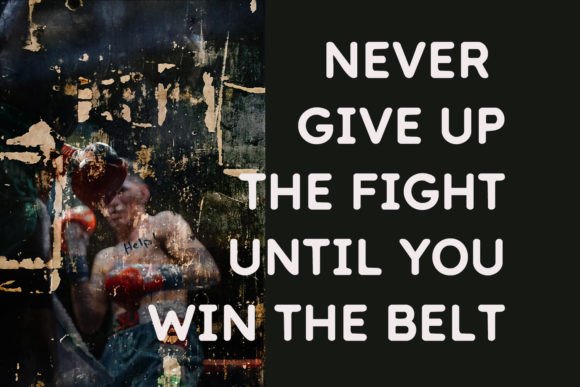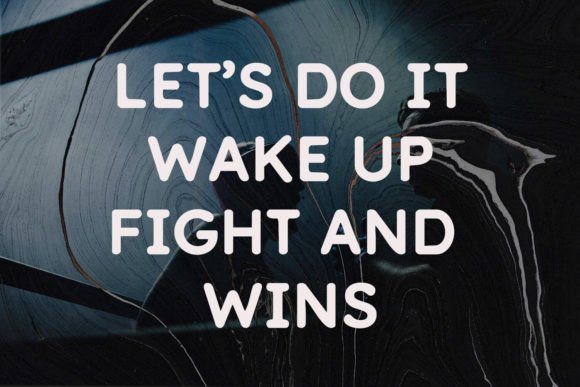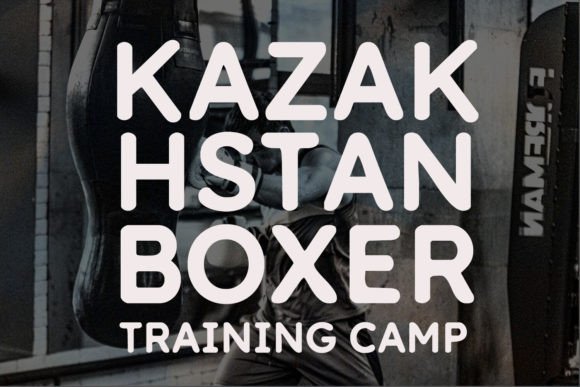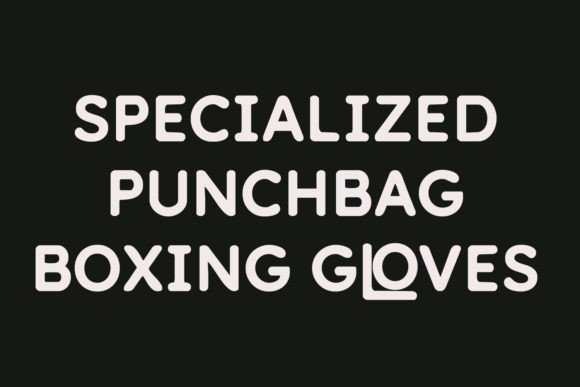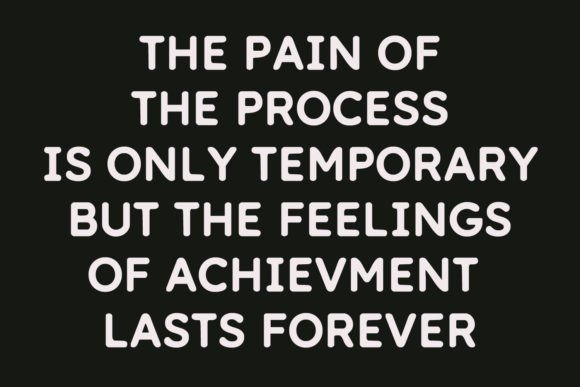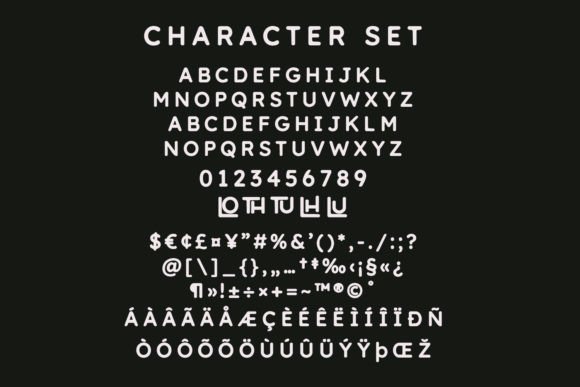
Introduction to Heton Font
As a designer, there’s nothing quite like the thrill of landing on the perfect font for a project. Remember that one moment when you stumbled upon a font that seemed to bring your entire design together? For many of us, that moment is what makes all the late nights and early mornings worth it. Today, we’re shining the spotlight on a font that’s sure to become a staple in your design arsenal: the Heton Font.
With its bold, rounded letters and smooth modern look, Heton Font is the perfect choice for creating eye-catching headlines, logos, and posters. Its thick, easy-to-read letters give off a friendly and stylish vibe that’s sure to elevate any design. Whether you’re working on a high-quality creative project or just need a reliable design resource, Heton Font is an excellent choice.
Key Features of Heton Font
- High-quality design resource with a transparent background, ideal for creative projects
- Includes a range of characters, including uppercase and lowercase letters, numbers, and punctuation marks
- Designed with a modern and sleek aesthetic, perfect for use in logos, branding, and other visual identity projects
- Perfect for designers and artists looking for a unique and creative font to elevate their projects
Honest Review: Heton Font
I recently had the chance to work with the Heton Font, and I must say it’s been a game-changer for my design projects. As a designer, I’m always on the lookout for high-quality design resources that can elevate my creative work, and Heton Font definitely delivers.
What works well: ✨ The font is incredibly versatile and can be used for a wide range of creative projects, from logos and branding to digital art and typography. The transparent background option is a huge plus, allowing for seamless integration with any design element. Plus, the font is free to download, making it an excellent choice for designers on a budget.
- Wide range of applications: ✨
- Transparent background option: ✨
Any limitations: ⚠️ The font may not be suitable for very small text sizes, as it can become difficult to read. Additionally, some users may find the font’s style a bit too minimalist for their taste.
Overall impression: I’m thoroughly impressed with the Heton Font. Its high quality, versatility, and affordability make it an excellent addition to any designer’s toolkit. Whether you’re working on a logo, brochure, or digital art project, Heton Font is definitely worth considering.
Heton Font is a versatile and high-quality font that can be used for various creative projects. It is available for free download and offers a transparent background, making it an ideal design resource for modern designs.
Tips for Getting the Most Out of Heton Font
For the best results, use Heton Font in combination with other design elements, such as images and graphics, to create a visually appealing design.
Experiment with different font sizes, colors, and styles to find the perfect combination for your creative project.
Common Use Cases for Heton Font
Heton Font is